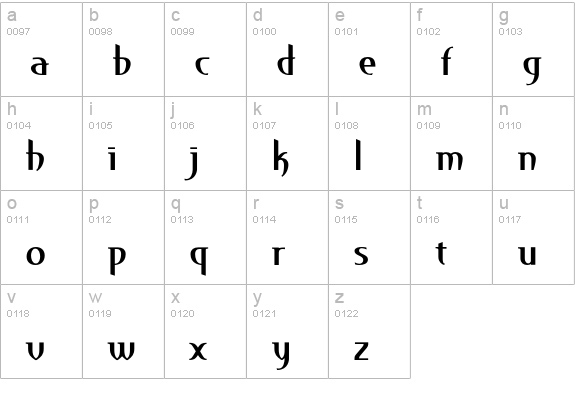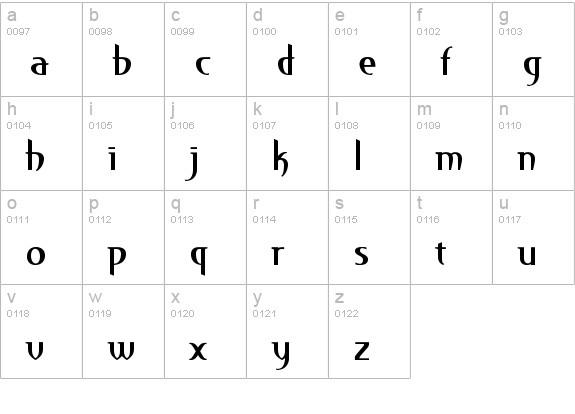
Perceval-Bold Font Details
Perceval-Bold is a strong, high-contrast variant in the Perceval typeface family \xE2\x80\x94 well suited to headlines, attention-grabbing titles, and strong calls-to-action.
Perceval-Bold is a stunning and versatile font that effortlessly combines elegance with a modern twist. Its bold and assertive letterforms make a powerful statement, perfect for eye-catching headlines, impactful logos, and captivating branding materials. With its strong presence and clean lines, Perceval-Bold commands attention and leaves a lasting impression. Each character is meticulously designed to exude confidence and professionalism, making it a preferred choice for advertising campaigns, magazine layouts, and website designs. This font's versatility extends beyond its boldness, as it also offers a touch of sophistication and refinement. Whether you are creating invitations for a high-end event, designing book covers that demand attention, or crafting luxurious packaging, Perceval-Bold effortlessly elevates any project to a whole new level of class. What sets Perceval-Bold apart from other fonts is not only its exceptional design but also its availability. Unlike many premium fonts, Perceval-Bold is freely available to download at FontsMarket.com. This means that you can access this exceptional font without any cost, allowing you to enhance your designs without breaking the bank. So why settle for ordinary when you can make a statement with Perceval-Bold? Download this remarkable font today from FontsMarket.com and bring your projects to life with its boldness, elegance, and the added benefit of being free.